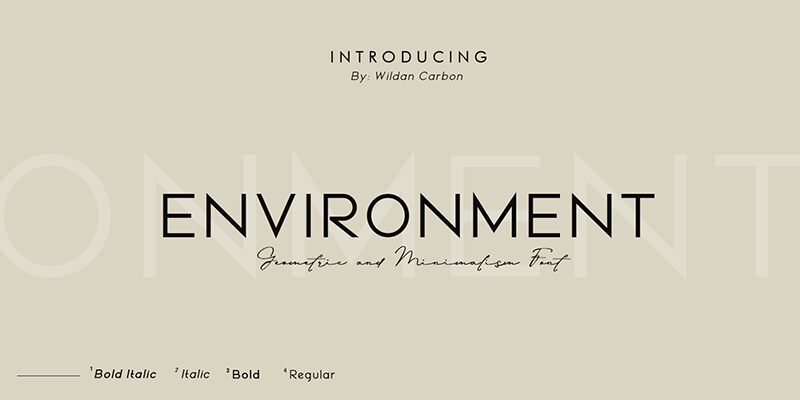
Environment (Demo) Bold
Environment Bold is a striking sans-serif font designed by Wildan Type. This contemporary typeface boasts a modern, minimalist aesthetic with clean lines and a bold, assertive presence. The uniform weight and geometric shapes create a sense of solidity and stability, while the subtle variations in stroke width add depth and visual interest. This font's strong, confident personality lends itself well to a range of applications, from editorial design to branding and packaging.
The versatile nature of Environment Bold makes it a versatile choice for a wide array of design projects. Its legible and straightforward appearance makes it well-suited for use in headings, signage, and other high-impact applications. The font's robust and authoritative character also positions it as an excellent option for corporate communications, product packaging, and other contexts where a sense of professionalism and reliability is paramount.